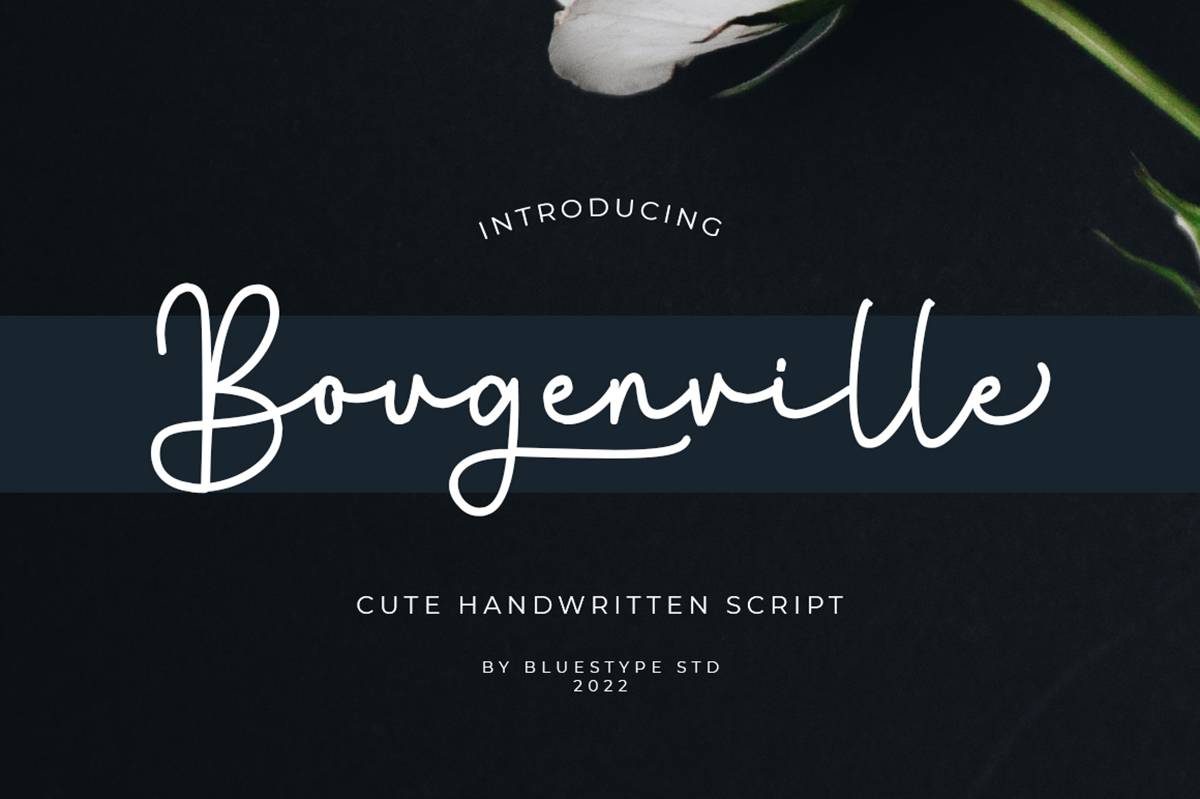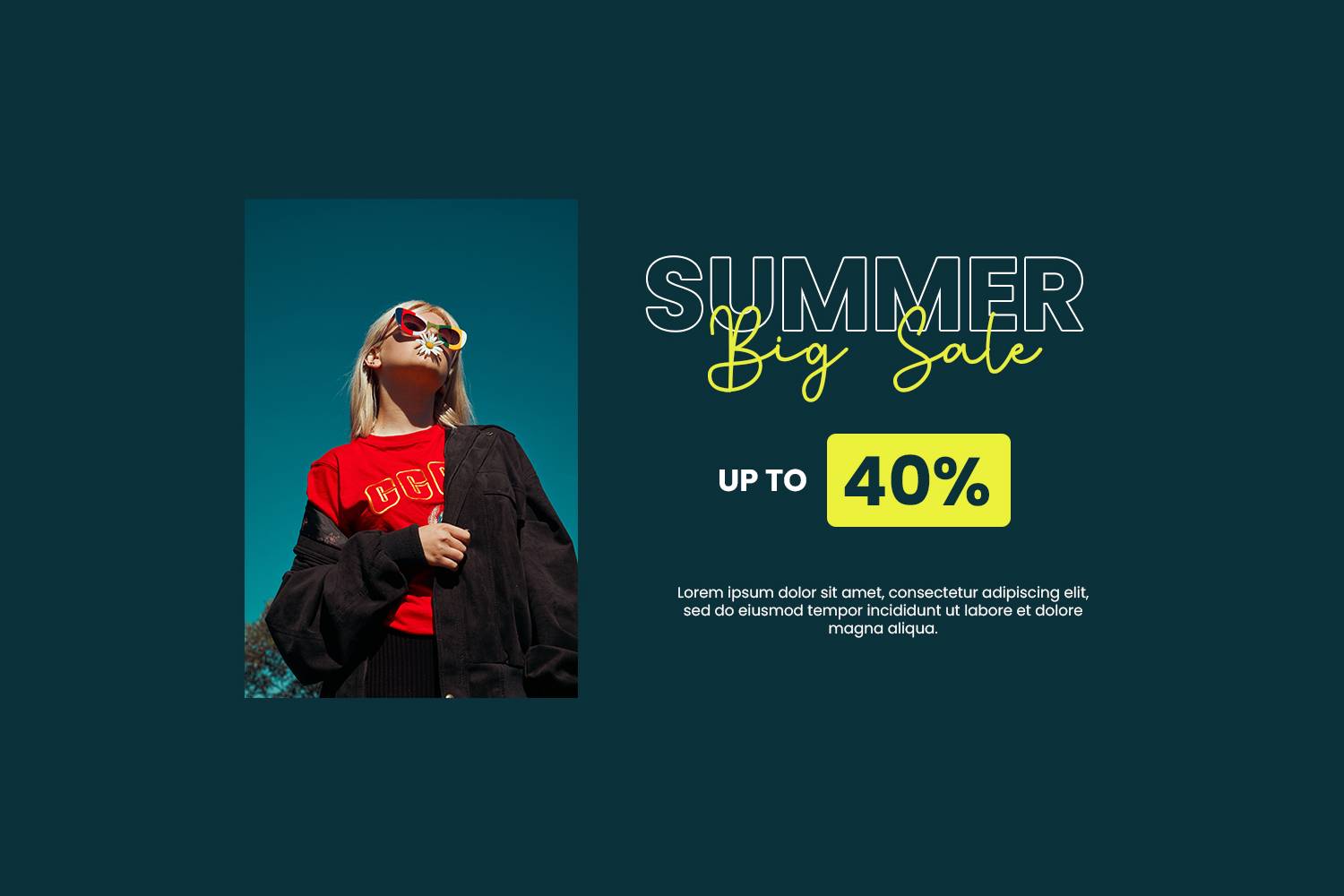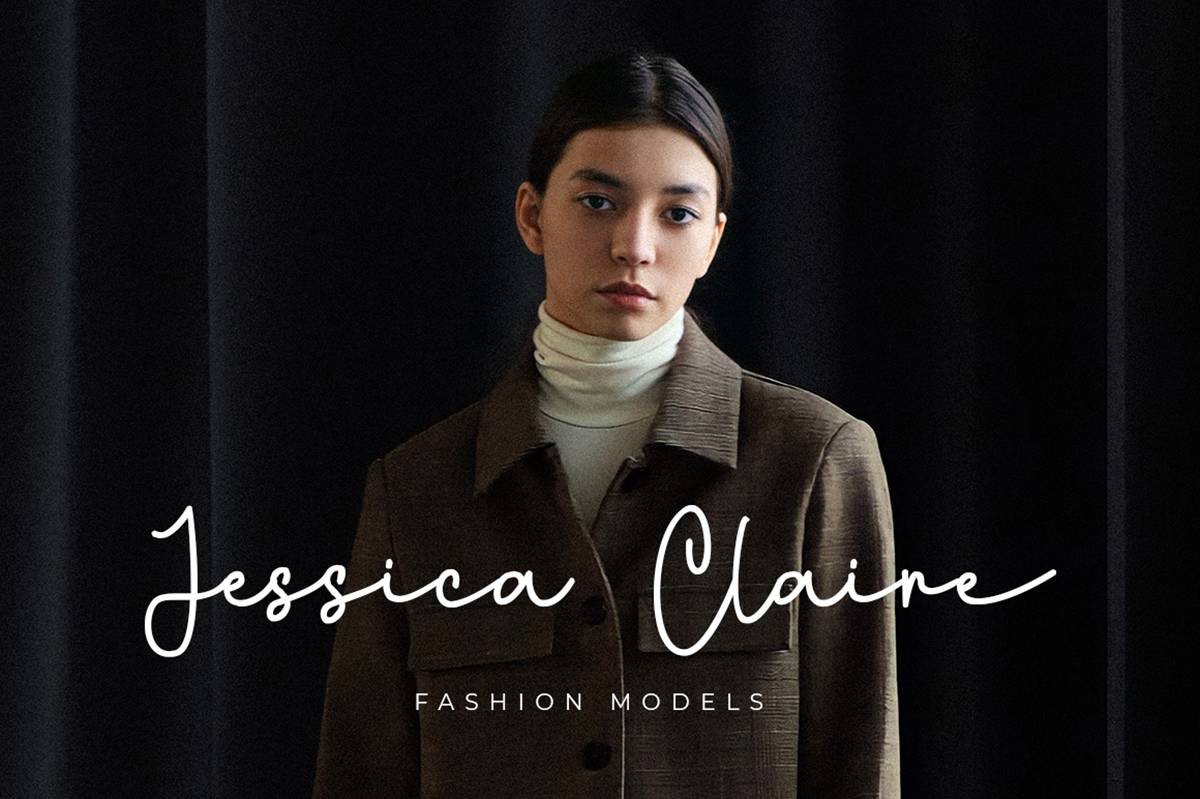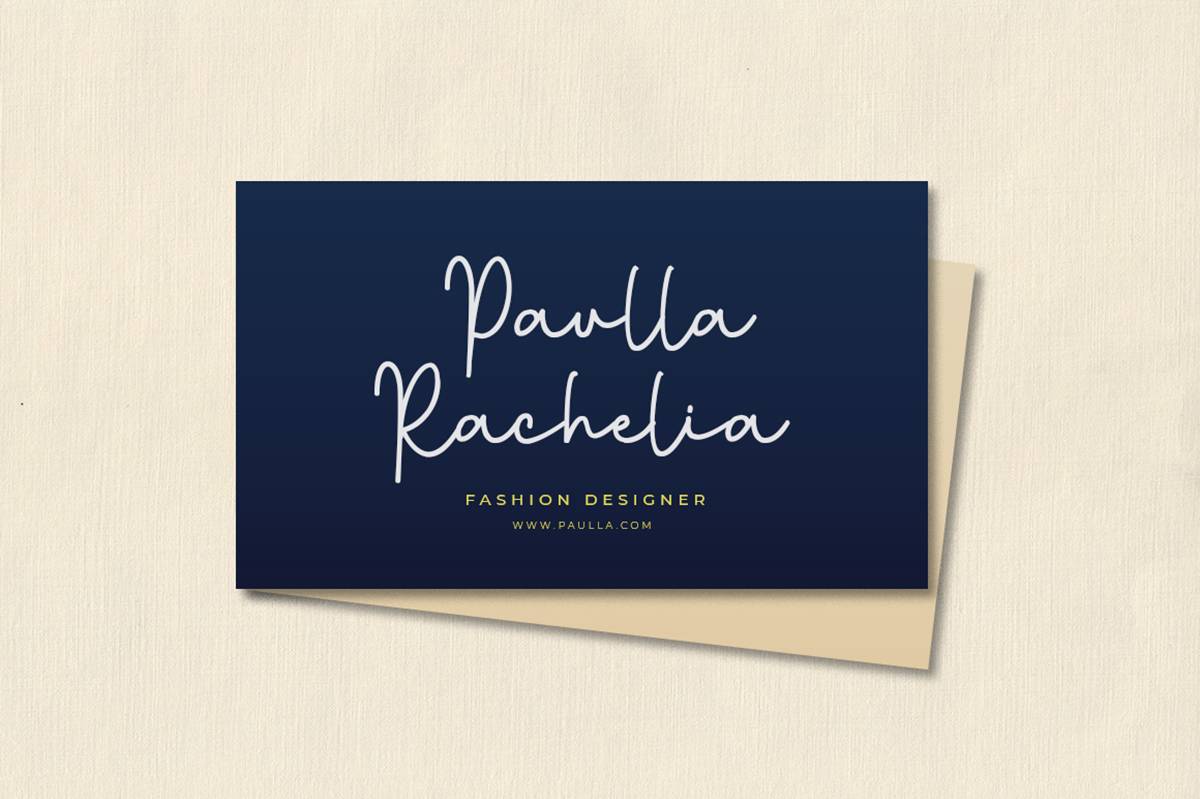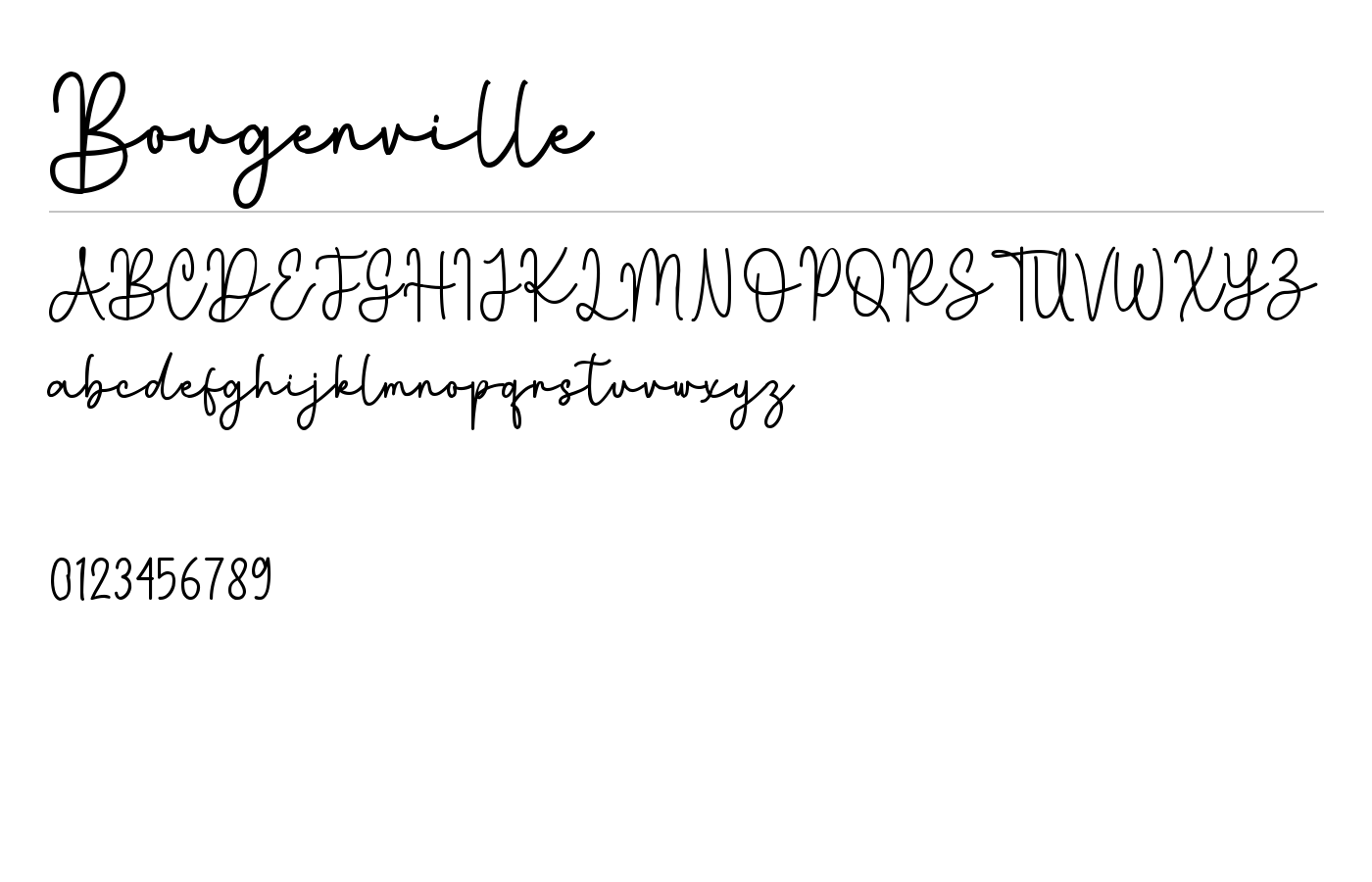
Bougenville is a delicate, handwritten script font that features airy, flowing letterforms with a playful yet elegant style. Its thin strokes and tall, slightly narrow characters give it a light, informal charm that works beautifully for personal branding, invitations, and creative projects seeking a touch of warmth and friendliness. This font is perfect for designs that need a handwritten feel with a refined and approachable personality.
Bougenville Font
About Bougenville Font